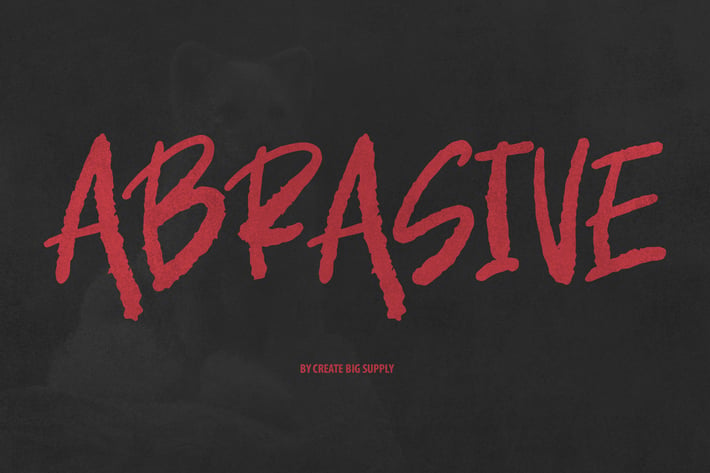
Abrasive Brush Font
Abrasive font Brush is a font that has a rough, strong, bold, natural, brushed and stroked style. Whatever the topic, this font will be a great asset to your font library, as it has the potential to enhance any creation.\
-Uppercase & lowercase
-Numbers and punctuation
-Multilingual